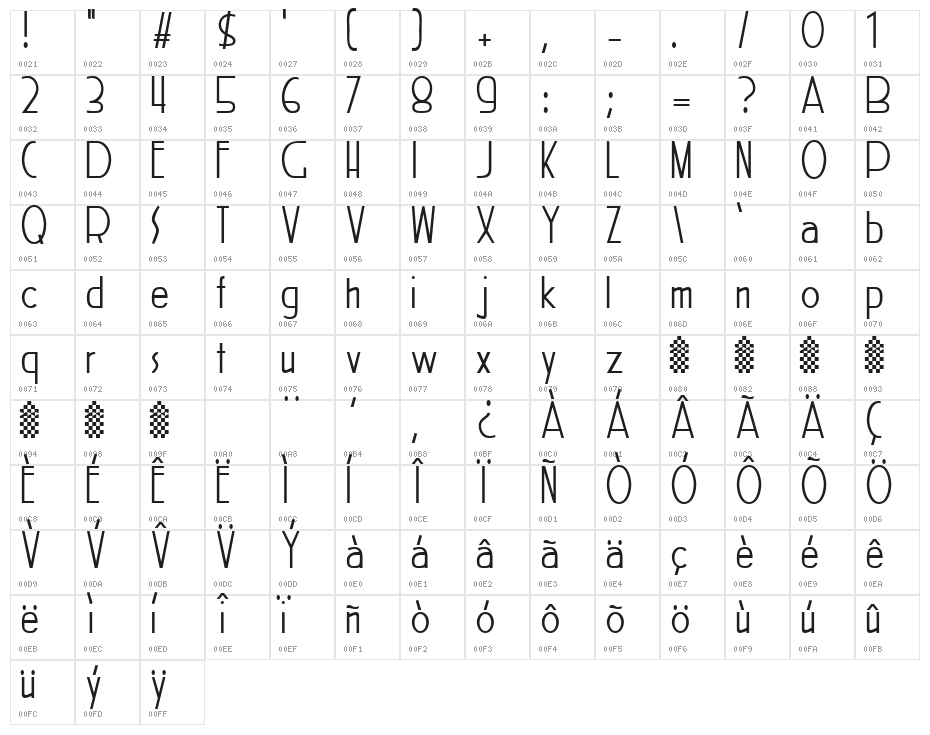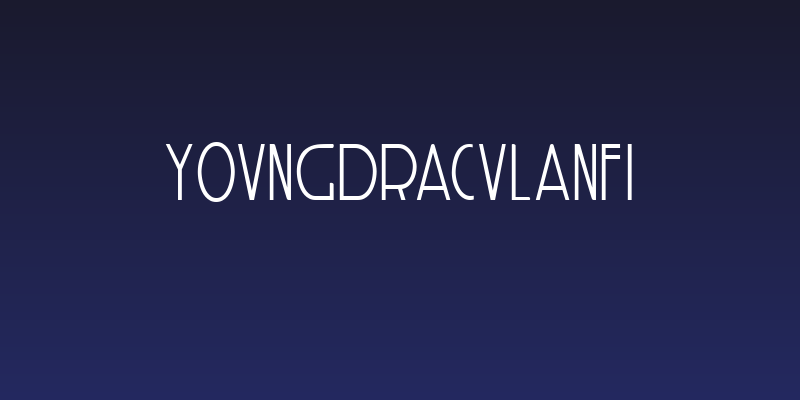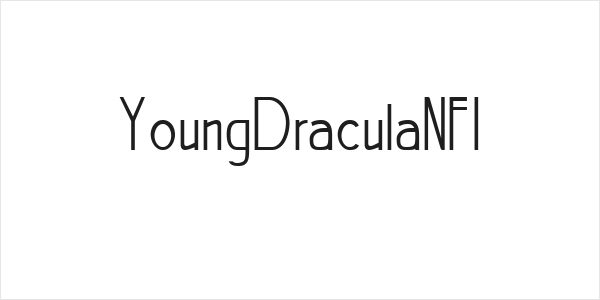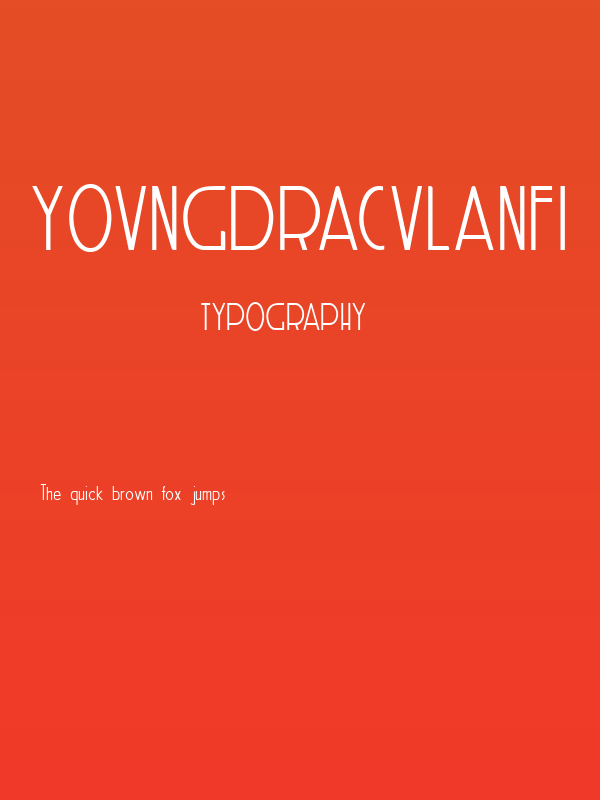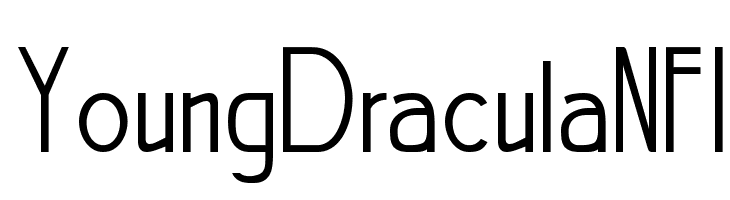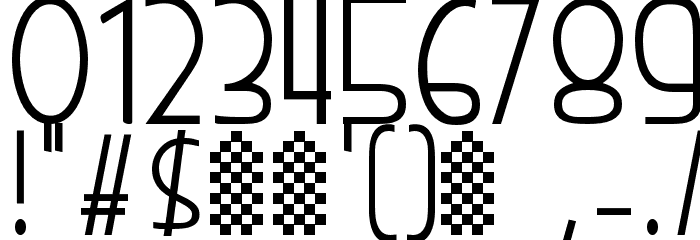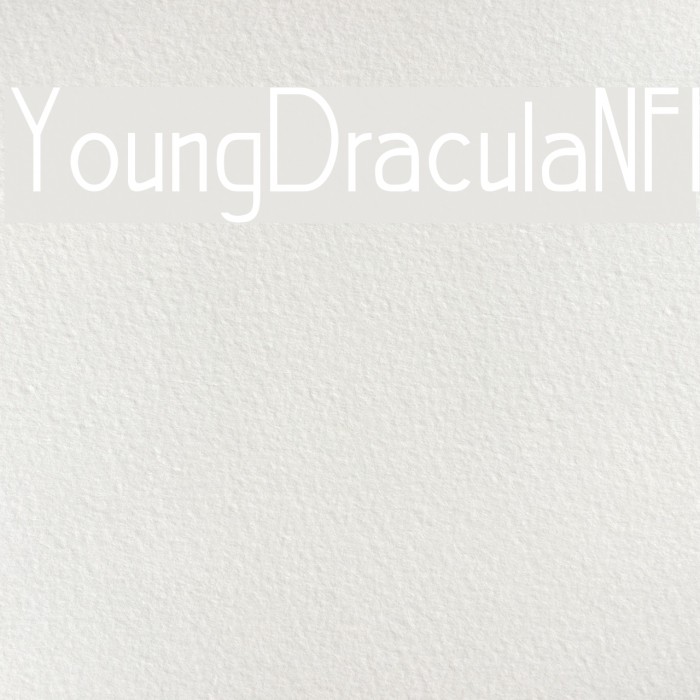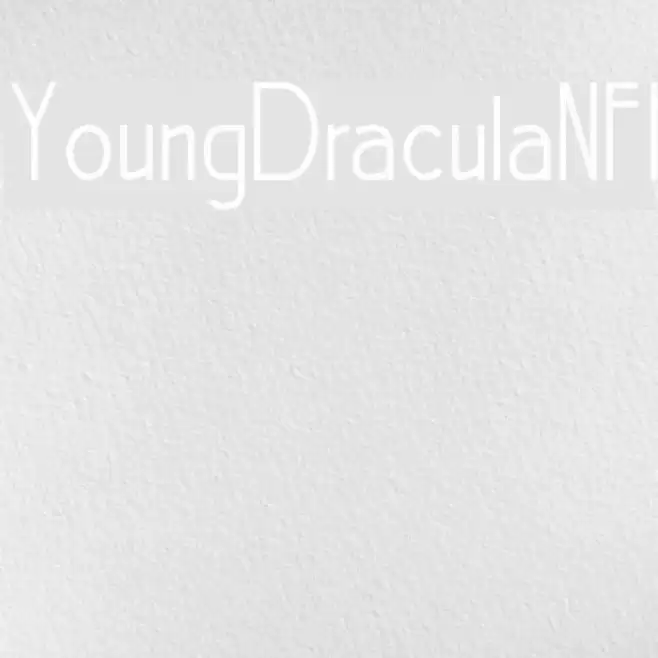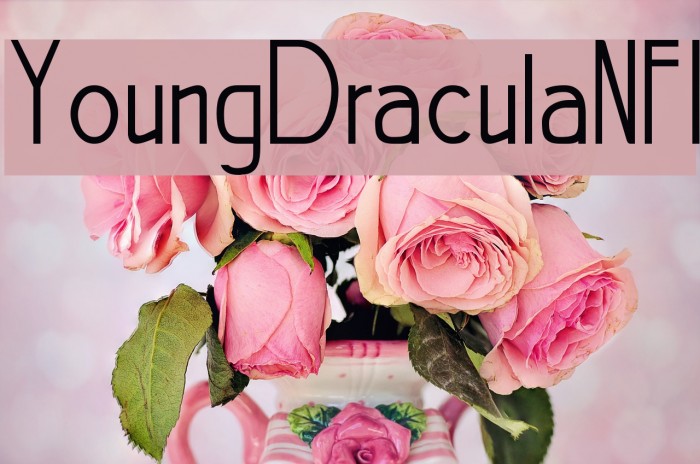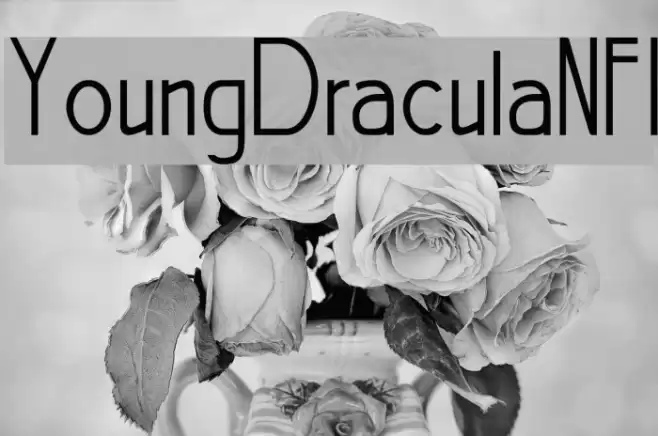
YoungDraculaNFI Font
YoungDraculaNFI Description
This font features a modern and sleek design with a geometric influence. The uppercase letters are tall and narrow, giving a sophisticated and elegant appearance. The lowercase letters maintain a consistent style, with some unique elements such as the distinctive 's' and 't'. The numerals are bold and clear, ensuring readability. Special characters are creatively designed, with some incorporating a pixelated pattern that adds a playful touch. Overall, the font combines modernity with a hint of retro charm, making it versatile for various design needs.
| Proposed Projects | Ideal for branding, posters, and digital media projects that require a modern and stylish typeface. |